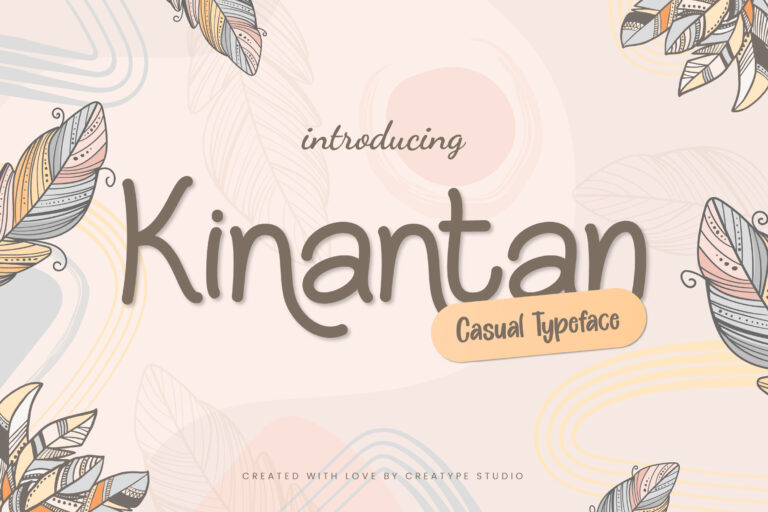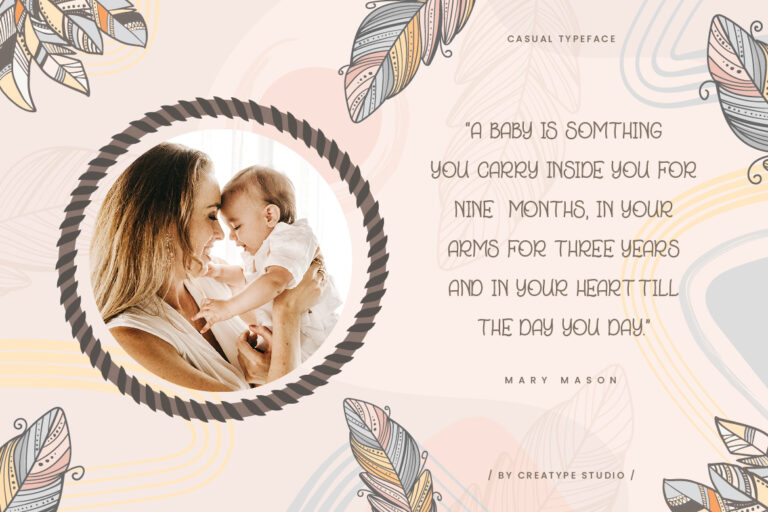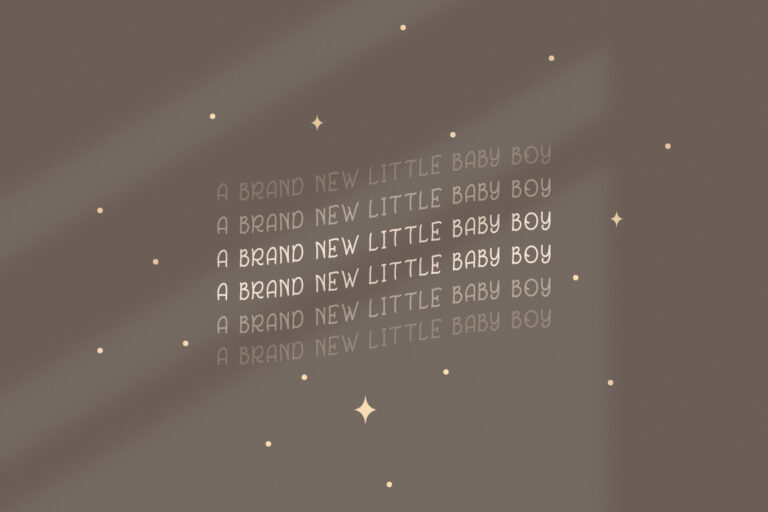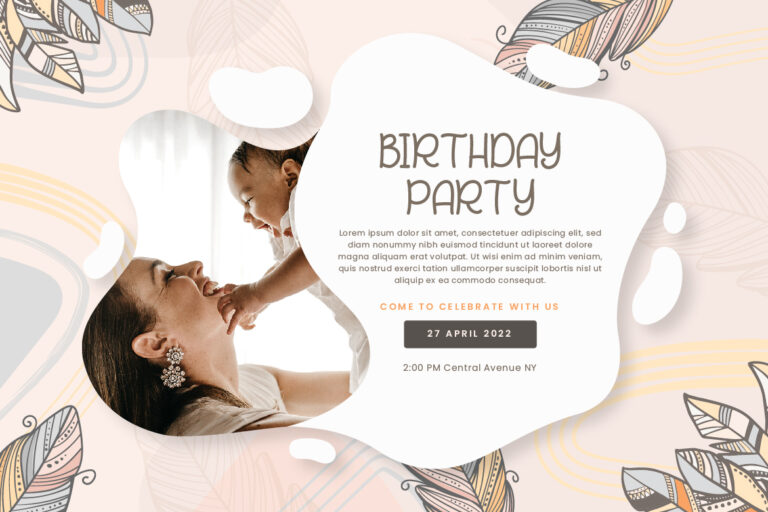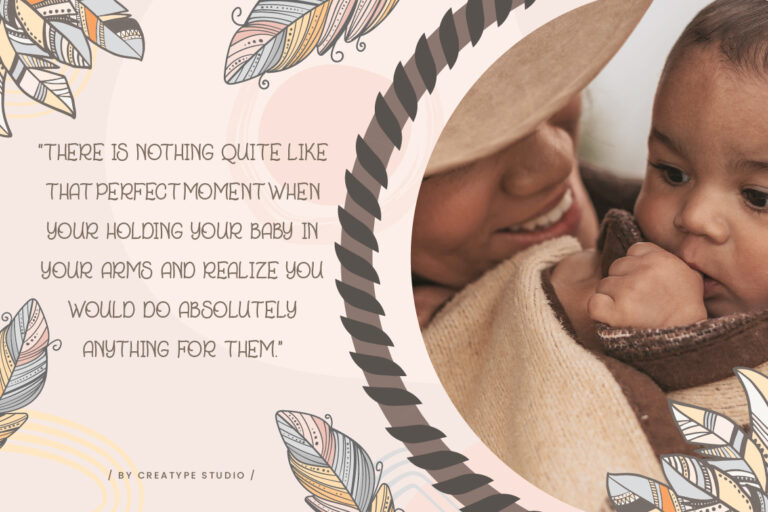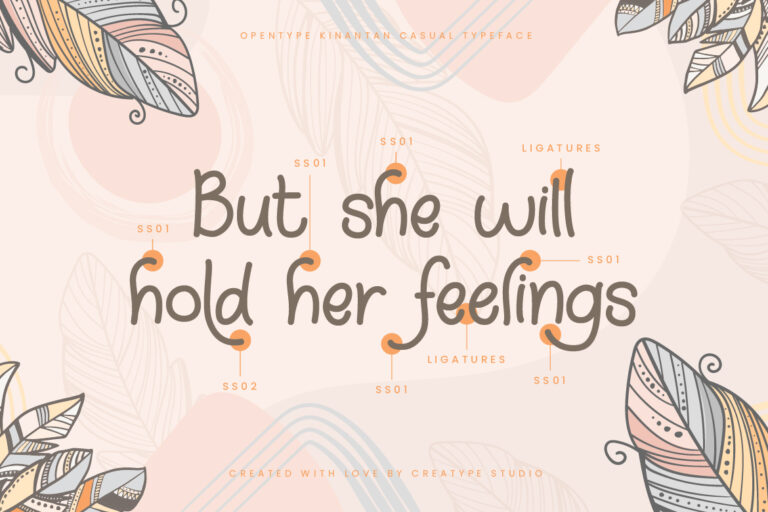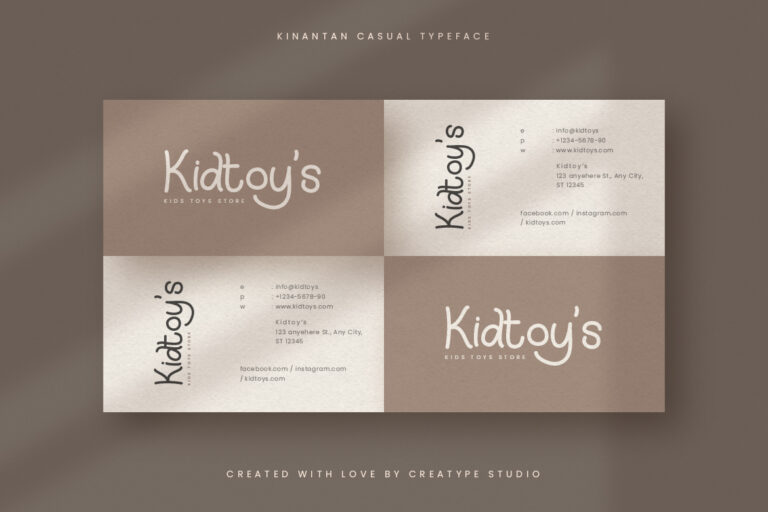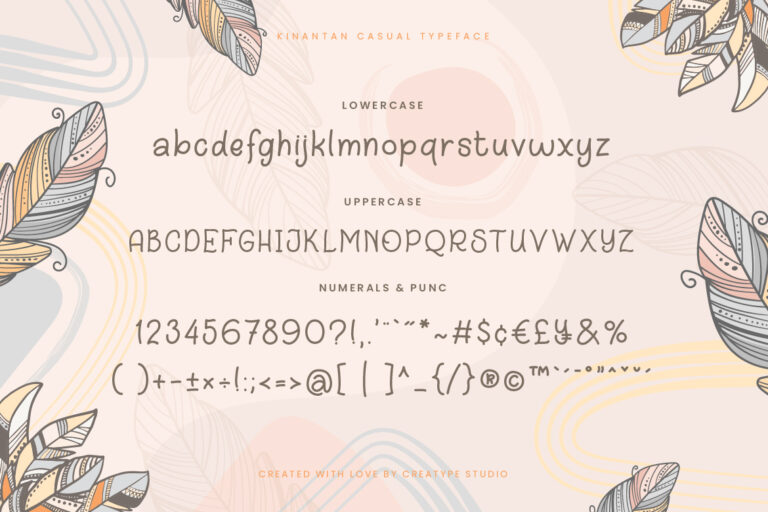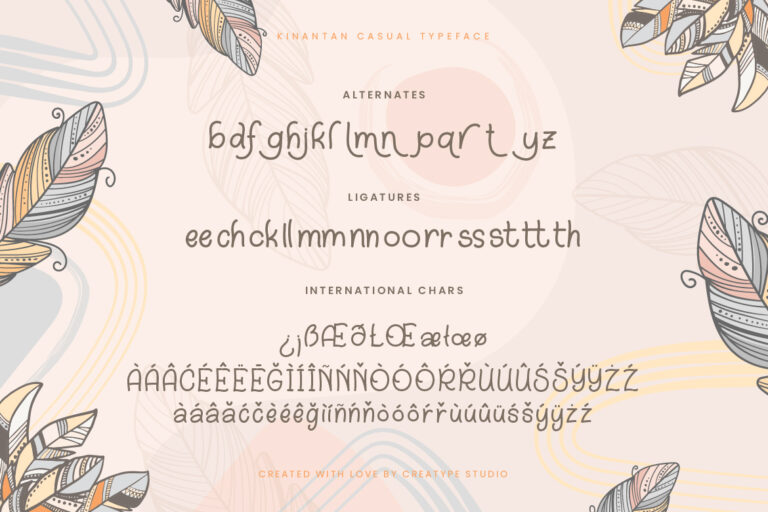
Kinantan Fun & Casual
Kinantan is a casual fun typeface that is specially made with love to produce a font that looks cute and fun. Seen in its shape, this font is very suitable for your products that use a sense of fun and children.
Kinantan is perfect for branding projects, logo, wedding designs, social media posts, advertisements, product packaging, product designs, label, photography, watermark, invitation, stationery and any projects that need handwriting taste.